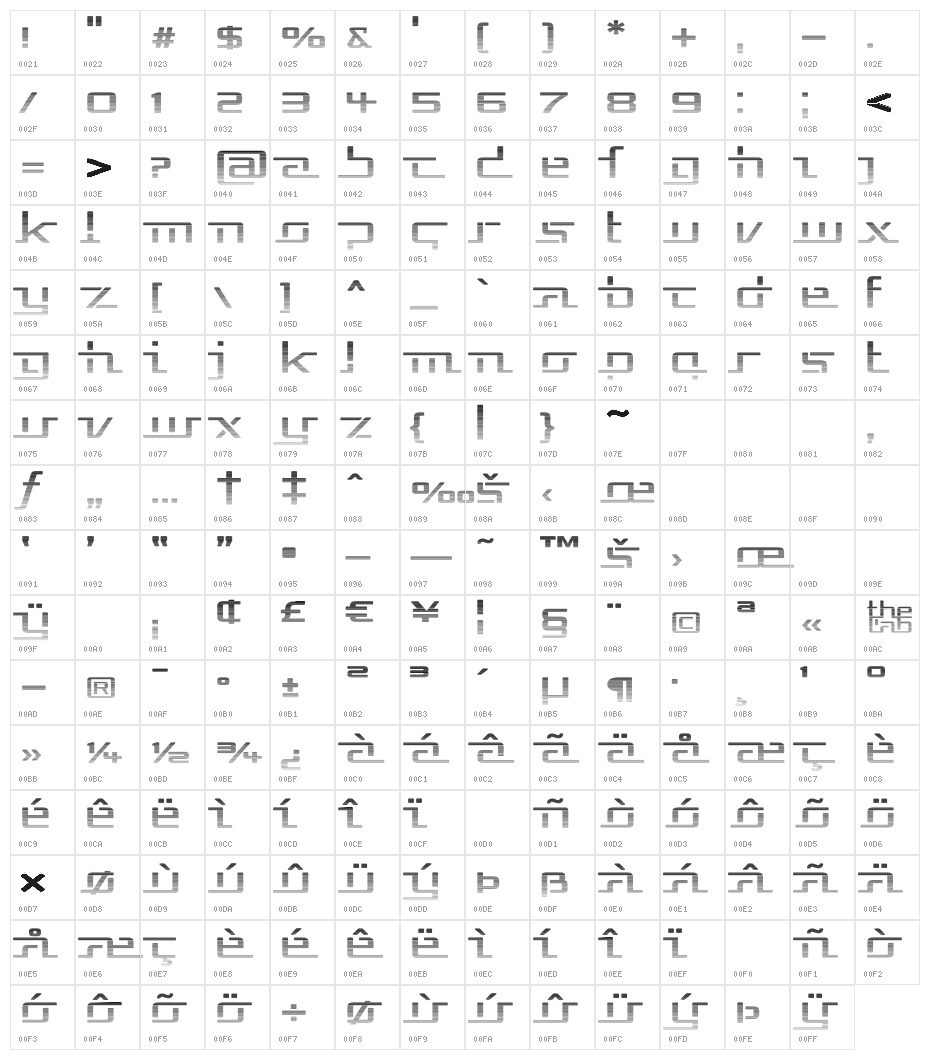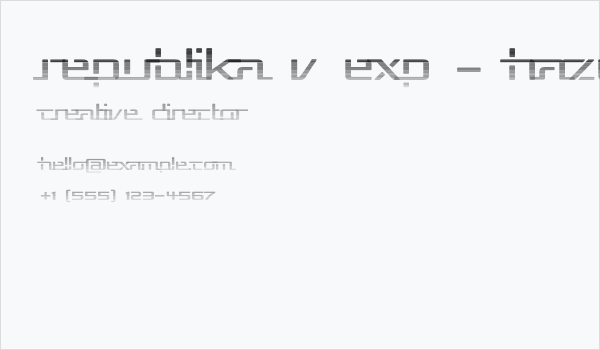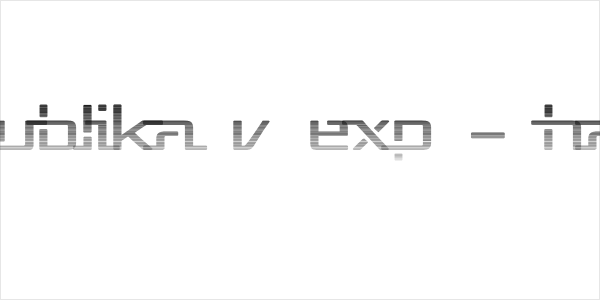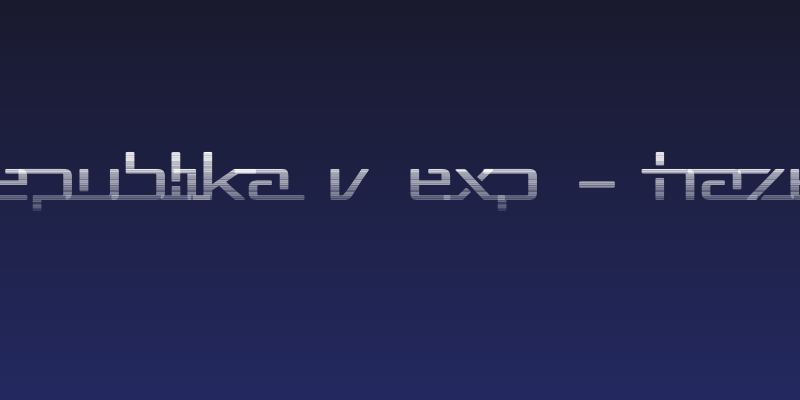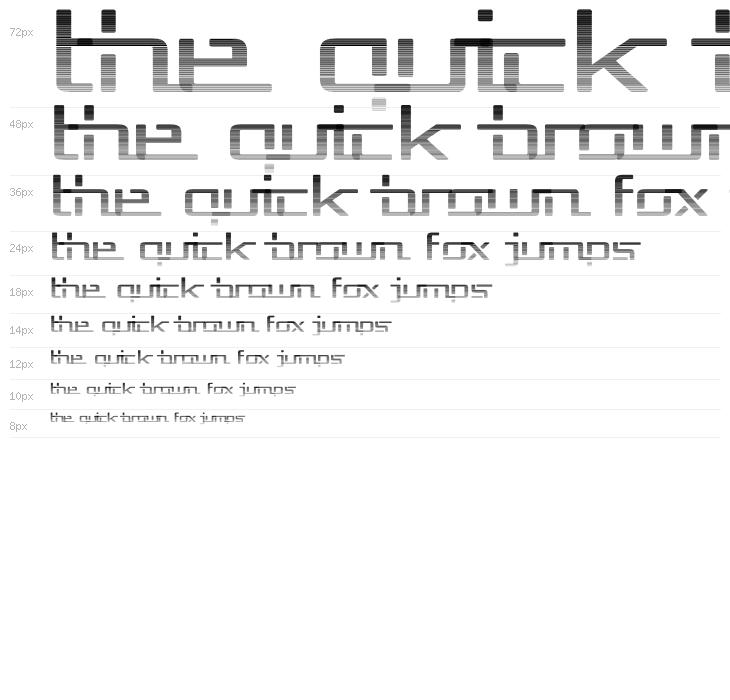
Republika V Exp - Haze Font
Republika V Exp - Haze Description
This font exhibits a futuristic and digital aesthetic, characterized by its geometric and angular letterforms. The design incorporates a unique pattern of horizontal lines that create a sense of movement and depth, giving it a dynamic and modern appearance. The characters are constructed with a consistent stroke width, maintaining a uniform look throughout. The uppercase and lowercase letters share similar structural elements, enhancing the font's cohesive style. Numerals and special characters are designed to match the overall theme, ensuring versatility across various applications.
| Proposed Projects | Ideal for technology branding, digital interfaces, video game design, and sci-fi themed projects. |